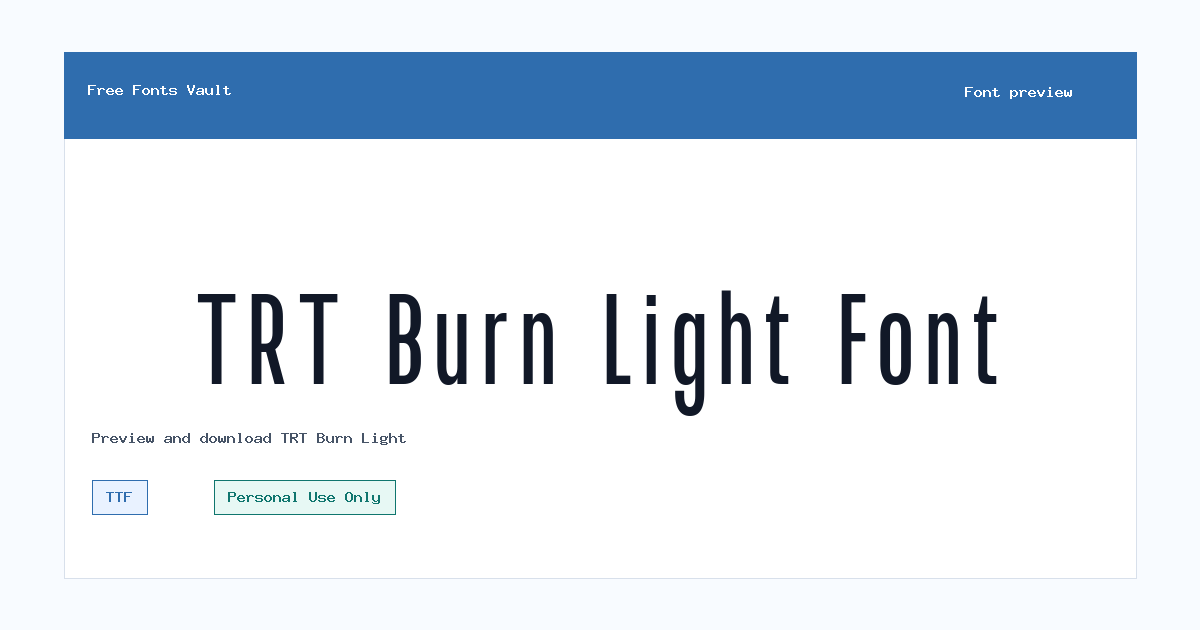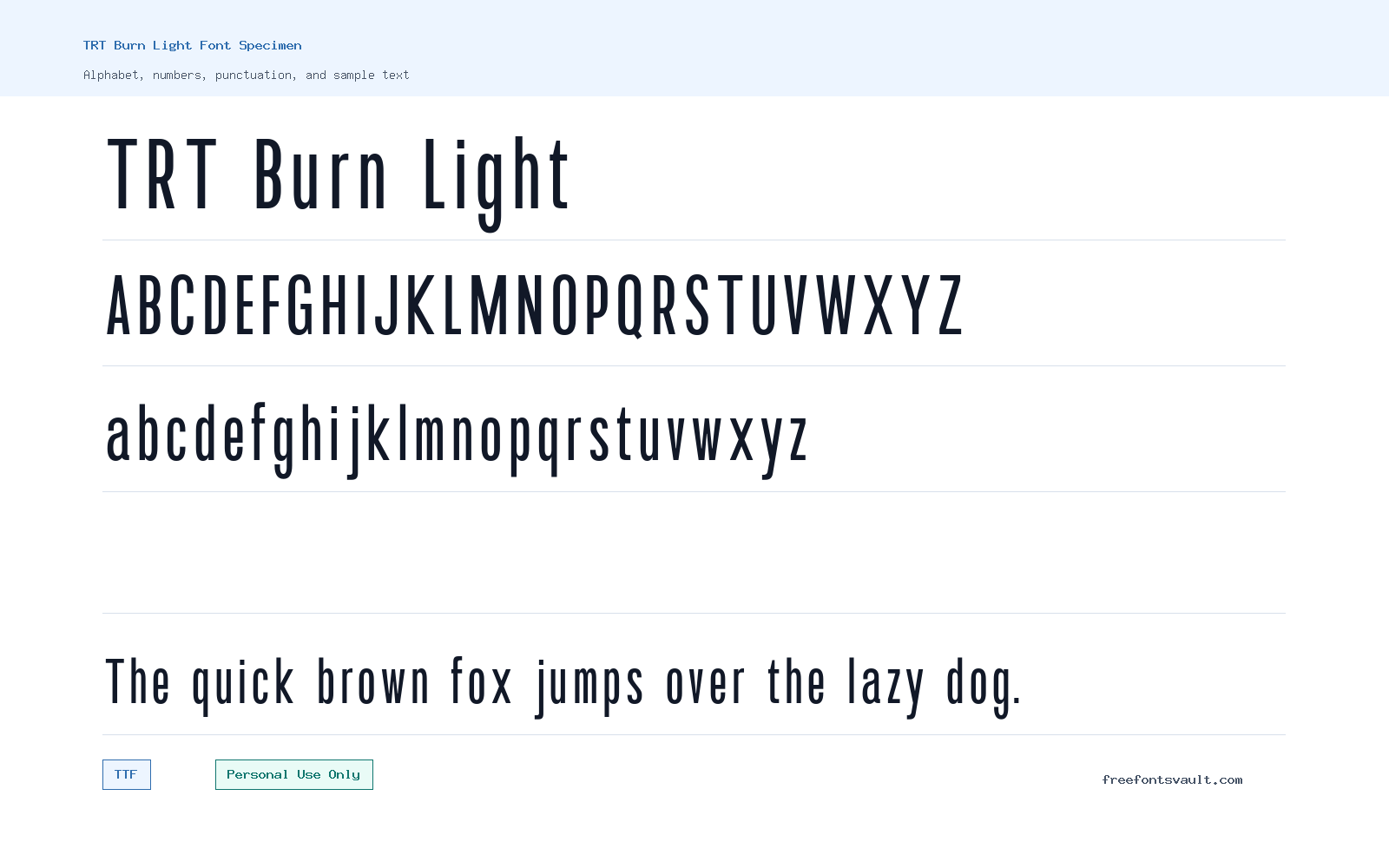
TRT Burn Light
- Designer Zainaldi Ibrahim of Truetype
- Foundry Truetype
TRT Burn Light is a light-weight sans serif font with a clean, modern appearance that works well when you need a softer, less heavy display style. Its thin 300 weight makes it useful for previewing elegant titles, logo concepts, poster text, and web layouts where a lighter voice is needed.
TRT Burn Light is part of the TRT Burn Sans Serif Font Family and is offered in a TrueType font file. The available style is a normal, light-weight cut, so the font is best approached as a refined display or heading option rather than a full text system. Its lighter strokes can give words a neat, open look, especially in short lines where spacing and shape are easy to notice. If you are testing a brand name, a headline, a clean quote layout, or a simple social graphic, this font can help you see how a lighter sans serif tone changes the mood of the design without making the text feel too dense.
Because this is a light font, it needs a little care in use. Thin strokes can look stylish at large sizes, but they may lose clarity in small body text, low-resolution images, or busy backgrounds. Try it first in the font preview with the exact words you plan to use, especially if your text has narrow letters, numbers, or punctuation. For logo work, check the spacing between letters and test the name in uppercase, lowercase, and title case before choosing a final layout. For posters and web mockups, TRT Burn Light is better suited to hero headings, section titles, navigation experiments, and short captions than long paragraphs. Pair it with a sturdier sans serif for body copy if the design needs longer reading.
- Light 300-weight sans serif style suitable for clean headings and display text.
- Normal upright style for straightforward titles, labels, and layout mockups.
- Works best in short text where the lighter stroke weight can stay clear and readable.
TRT Burn Light is credited to Zainaldi Ibrahim of Truetype, with Truetype listed as the foundry.
What font weight is TRT Burn Light?
The available style is a light 300-weight, normal upright font.
Is TRT Burn Light good for body text?
It is better for headings, short labels, and display use. The light stroke weight may become harder to read in long paragraphs or small sizes.
What should I pair with TRT Burn Light?
Pair it with a stronger, more readable sans serif for body copy. A regular or medium-weight companion font can balance the light headline style and keep longer text clear.